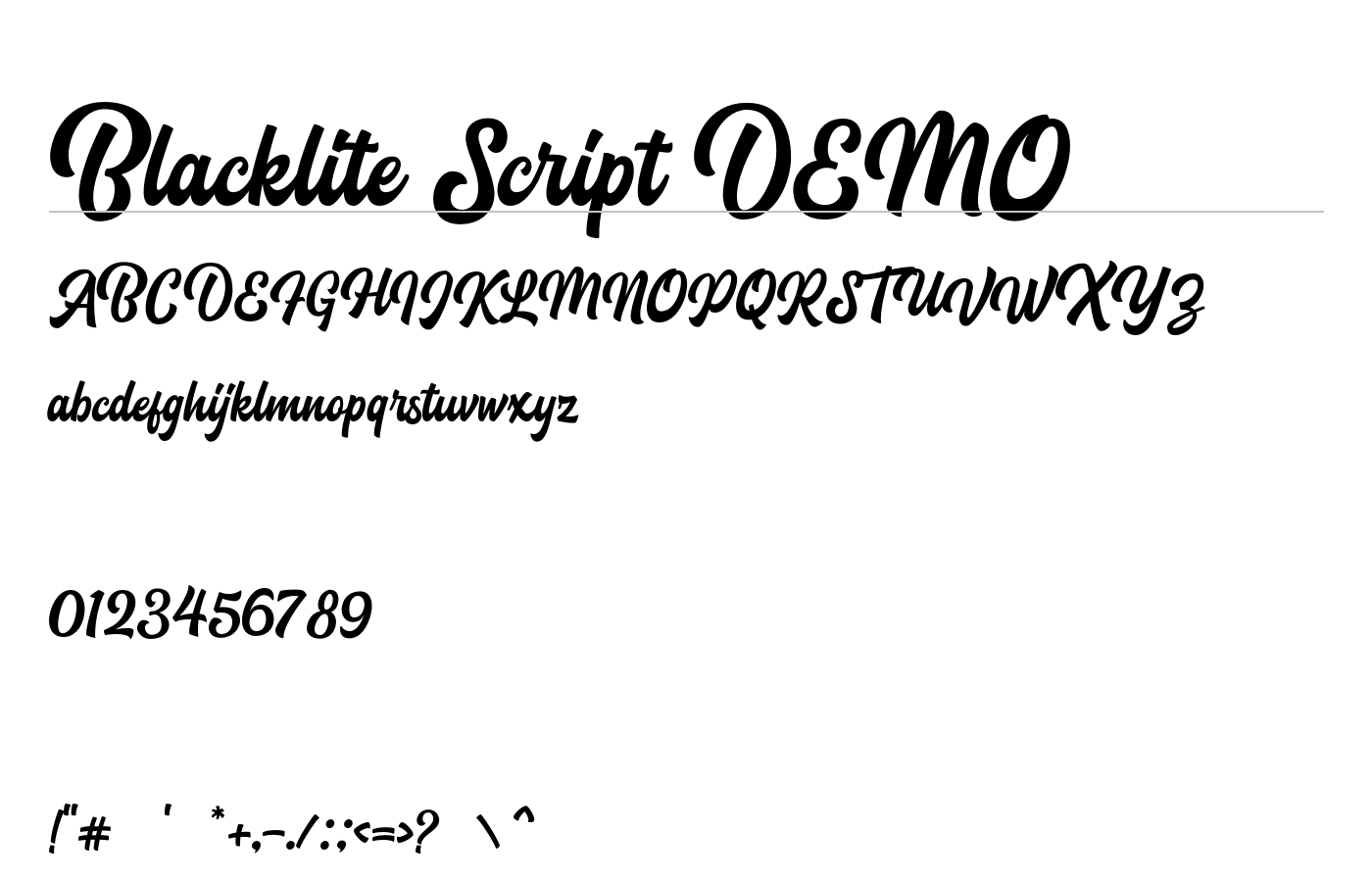
Blacklite Script DEMO is a bold, stylish script font with smooth, rounded strokes that evoke a playful yet confident personality. Its high contrast and slightly condensed letterforms create an elegant, modern feel, making it perfect for eye-catching logos, fashion branding, and creative headlines where a dynamic, handcrafted touch is desired. This font works best in display settings, adding flair and energy without sacrificing readability.
Blacklite Script DEMO Font
About Blacklite Script DEMO Font